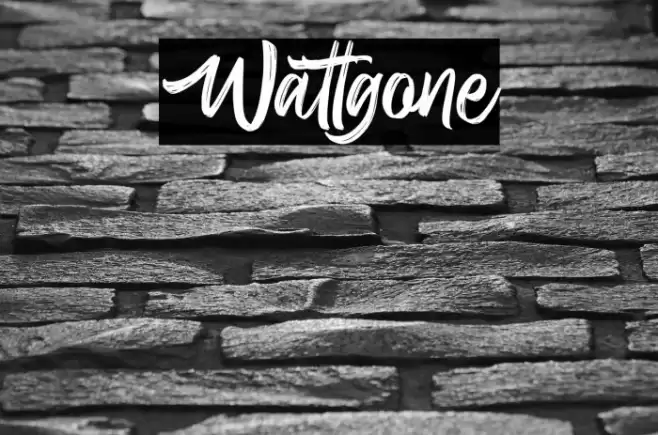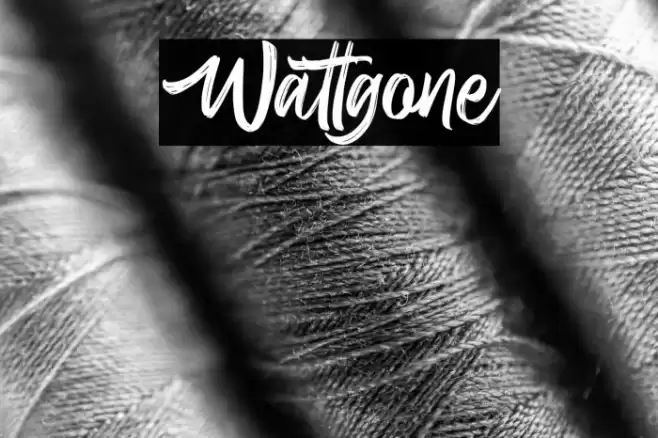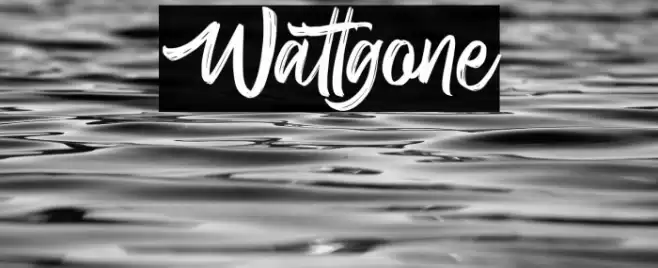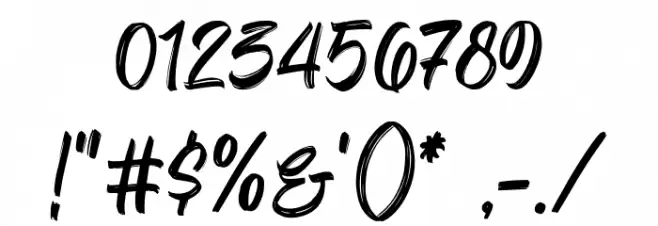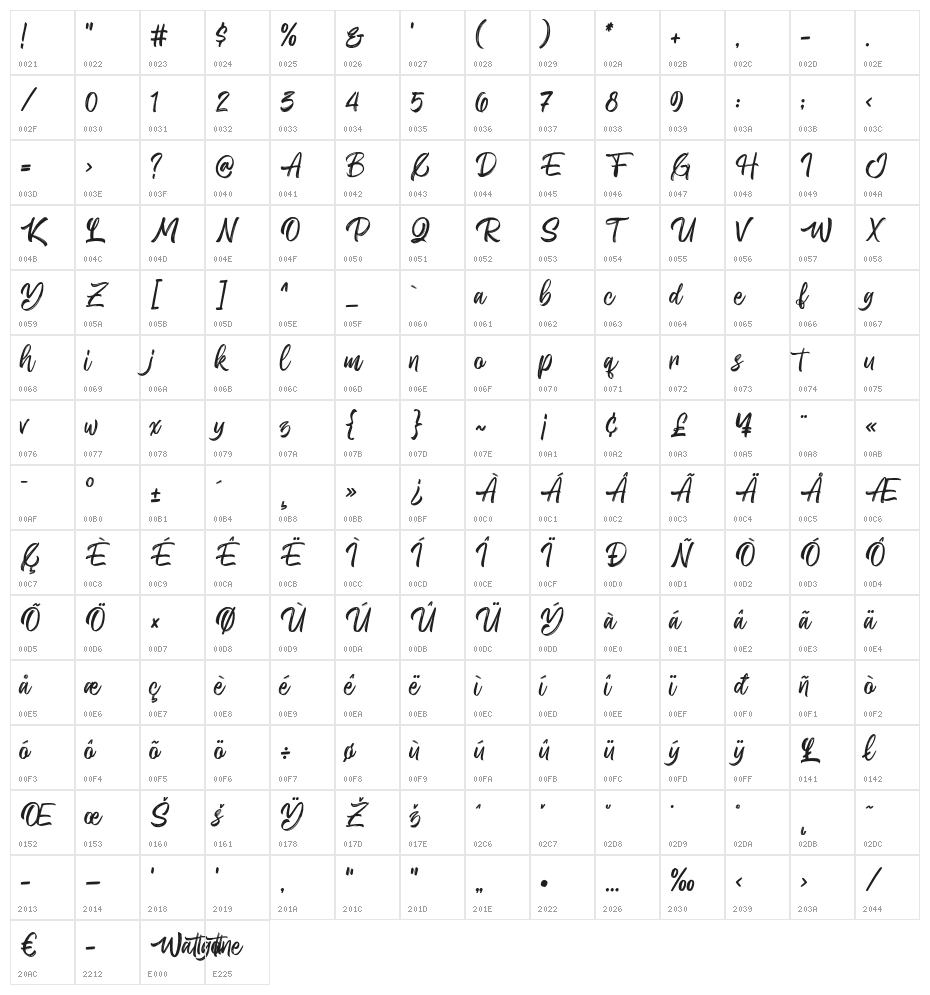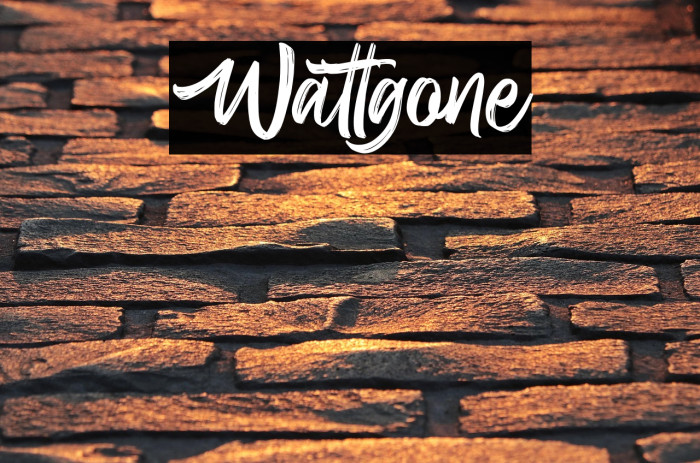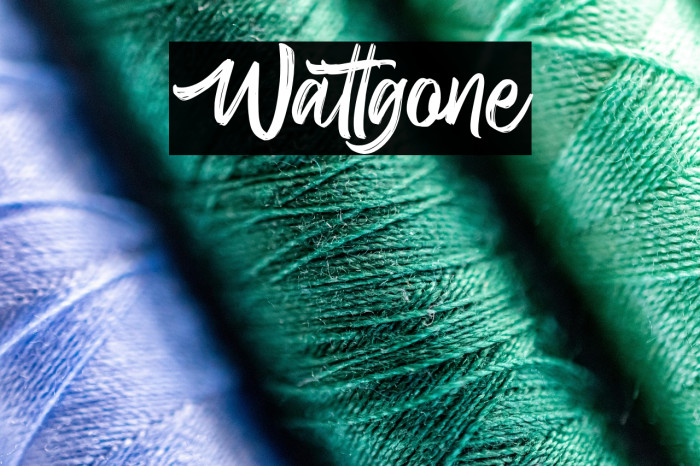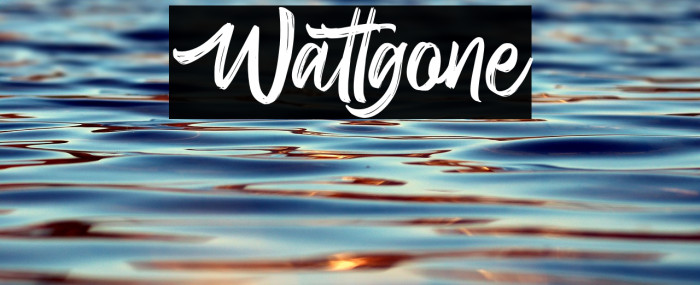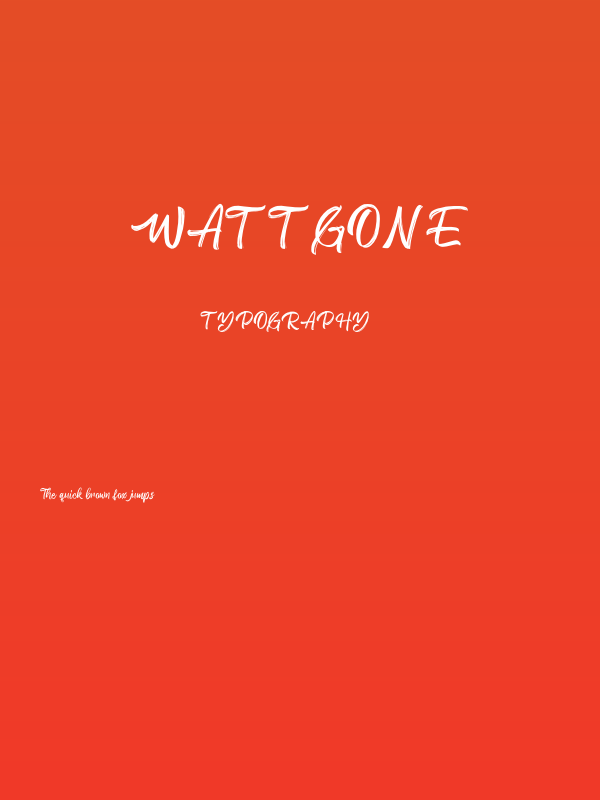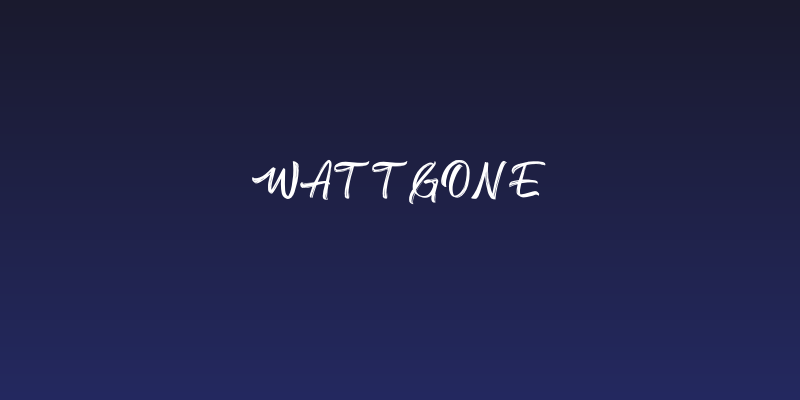
This font exudes a dynamic and energetic feel with its bold, brush-like strokes that convey a sense of movement and fluidity. The letters are crafted with a slight slant, enhancing the handwritten appearance and adding a personal touch. Each character is distinct, yet they flow seamlessly into one another, creating a cohesive and harmonious look. The uppercase letters are slightly larger and more pronounced, while the lowercase letters maintain a consistent style, offering versatility in design. The numbers and special characters are equally expressive, maintaining the same lively and artistic quality. This font is ideal for projects that require a personal, creative, and artistic touch.
A bold, brush-style font with dynamic, handwritten strokes from Regular fonts.
- Proposed Projects: Ideal for branding, logos, invitations, and artistic projects that require a personal touch.
- Use Case: Logos, Headlines, Invitations